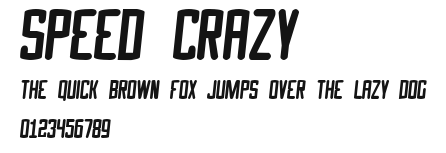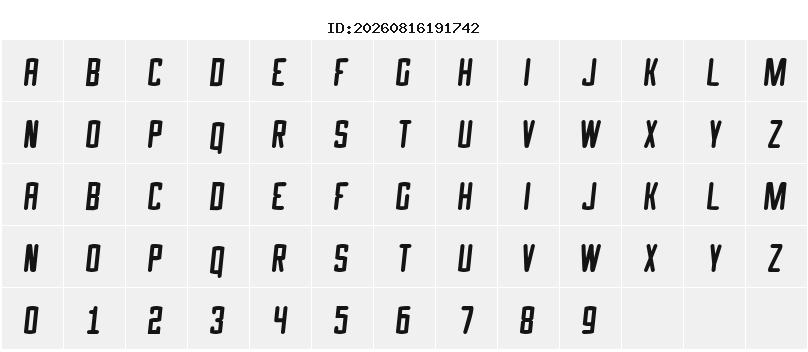
• Font Name: Speed Crazy
Speed Crazy.ttf is a modern, elegant sans-serif font designed for ultimate readability and visual harmony. Perfect for branding, headlines, web design, and print materials.